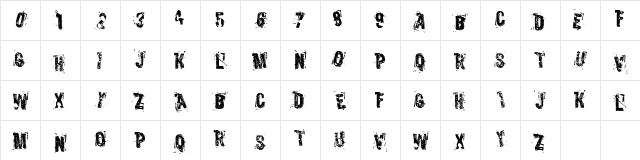
2Peas Static Regular Free Font
2Peas Static Regular
Designer: Tia Bennett
Design Context for 2Peas Static
2Peas Static is a composed and adaptable typeface that performs quietly and consistently across a wide range of design contexts.